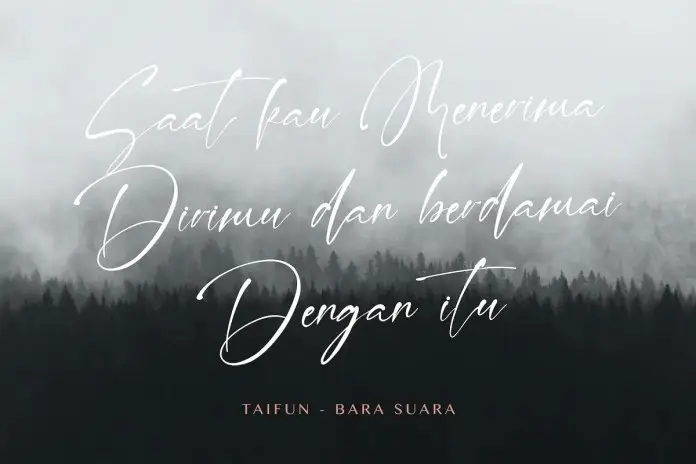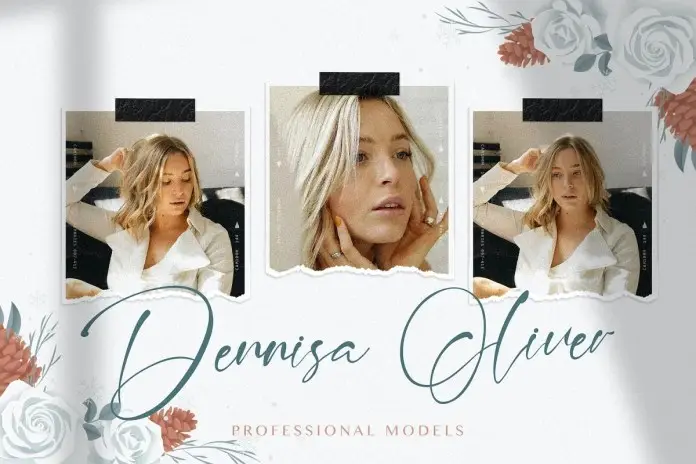
Cinta Sehatti Handwritten Font
Cinta Sehatti is a beautifully crafted handwritten font that adds a personal touch to your design projects. With its elegant strokes and fluid lines, this font is perfect for creating unique branding, logos, invitations, and more.
• Stylish handwritten design
• Multiple language support
• Ideal for branding and logo design
• Perfect for wedding invitations and greeting cards
• Great for social media graphics and promotional materials